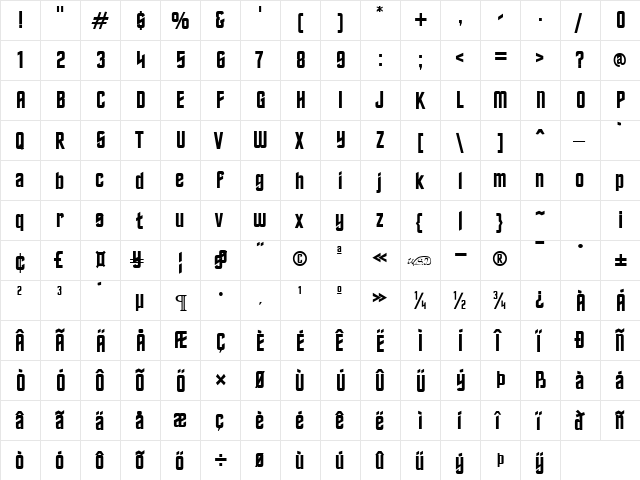
TrekkerFrontier Regular
Design Context for TrekkerFrontier Typeface
TrekkerFrontier taps into classic Western woodtype traditions — bold, characterful, and impossible to ignore.
Perfect for barbecue restaurants, country music branding, vintage poster design, and rustic packaging.
Font Pairing: Combine TrekkerFrontier with a simple slab or neutral sans — period-accurate companions reinforce the vintage feel without competing for attention.
Pro Tip: Pair TrekkerFrontier with aged textures or distressed backgrounds to amplify its vintage personality.